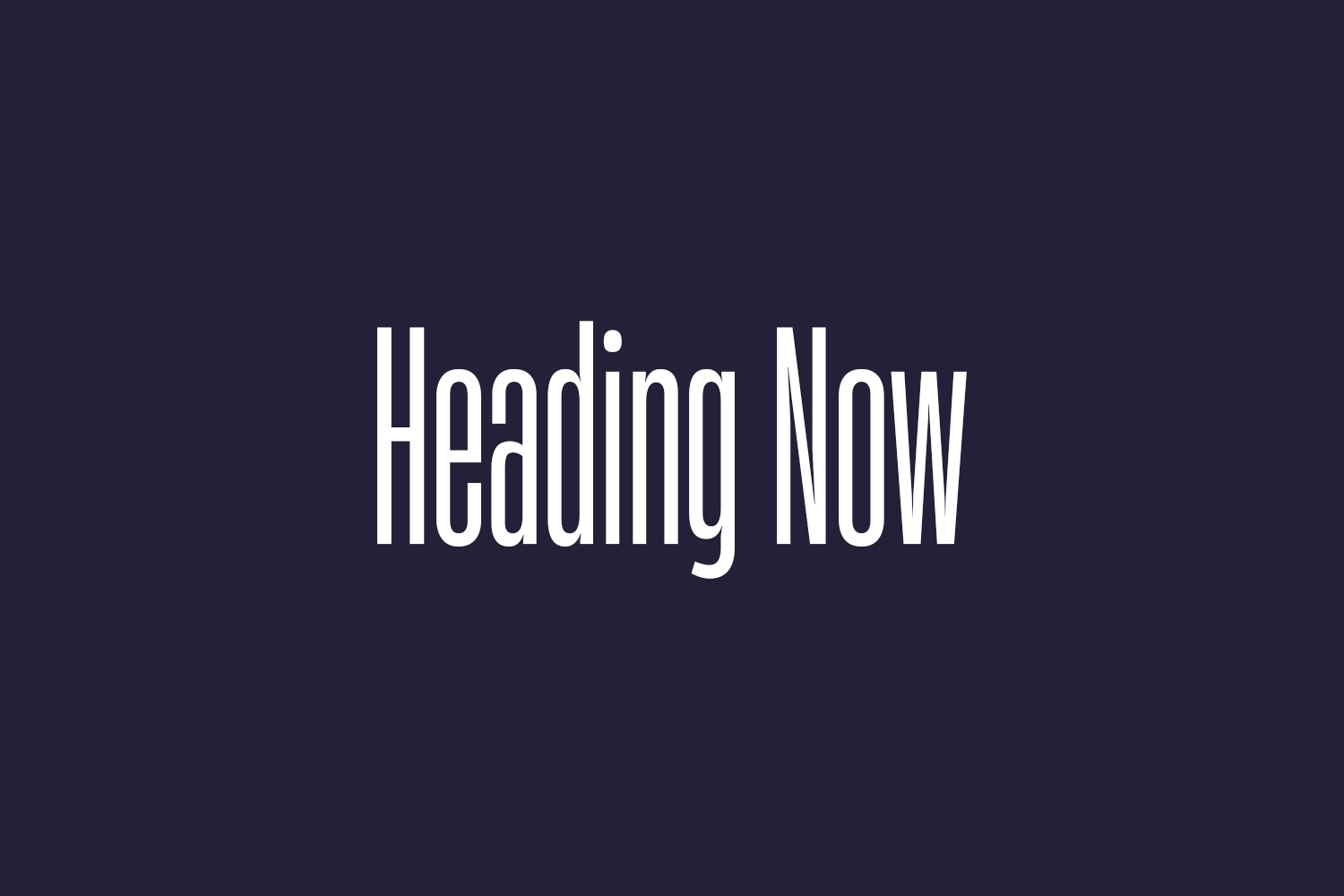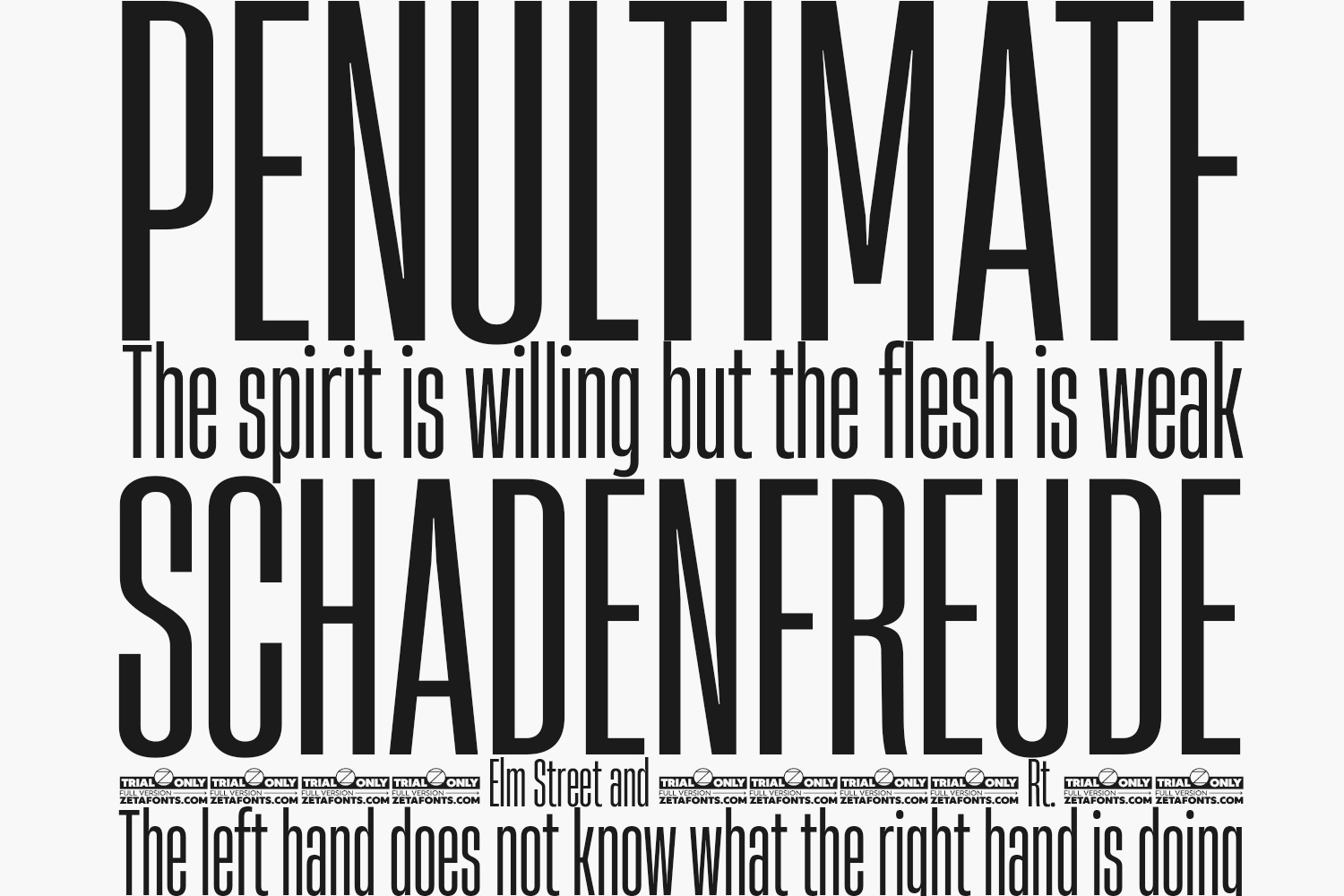
Heading Now Free Font
Heading Now is a bold and expressive sans-serif typeface designed by Ronny Studio to bring clarity and visual strength to your creative projects. With its clean lines, structured detailing, and high-contrast body, this free decorative font works perfectly for crafting powerful logos, magazine covers, brand identities, editorial headers, and more. Available in OTF format — ideal for designers seeking a modern, impactful font that commands attention while maintaining readability.
Why Choose Heading Now?
• Bold Caps Style: Combines sharp geometry with strong letterforms for a confident, professional appearance.
• Ideal for Display & Posters: Perfect for large text applications like billboards, event banners, or digital headlines needing visibility from a distance.
Where to Use Heading Now?
Heading Now shines across a variety of design applications:
• Logos & Branding: Adds intensity to brand kits for lifestyle blogs, fashion labels, or action studios needing a loud tone.
• Poster & Billboard Design: Designed for maximum visibility — makes headlines pop in outdoor advertising and movie posters.
• Social Media Graphics: Creates bold text overlays for Instagram Stories, TikTok videos, or YouTube thumbnails with a gritty vibe.
• Packaging Design: Brings strength to product tags on novelty items, beverage cans, or streetwear labels requiring an edgy look.
• Editorial Headers: Stands out in blog headers, magazine covers, and digital banners with a crisp, stylish charm.
Design Tips with Heading Now